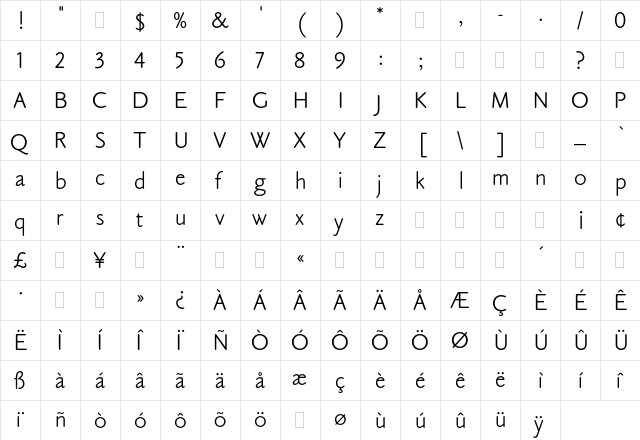
Claude Sans Plain
Design Context for Claude Sans Typeface
Claude Sans is a composed and adaptable typeface that performs quietly and consistently across a wide range of design contexts.